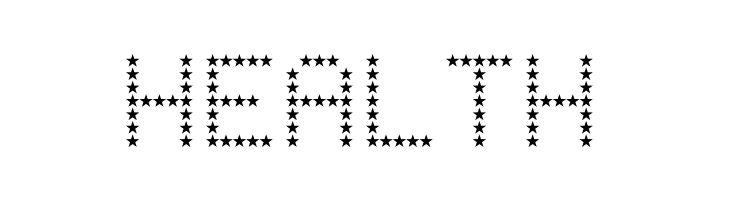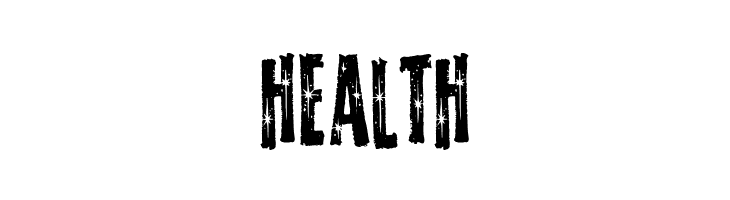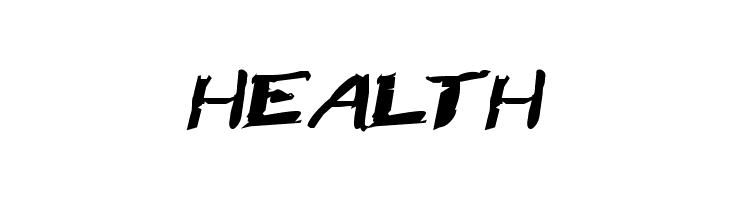
A playful handwritten font with smooth, rounded strokes and a casual feel.
( Fonts by Kimberly Geswein )
A playful, bold font with hand-drawn characters enclosed in black ovals.
( Fonts by Letterafa Studio )
A playful, star-filled decorative font perfect for festive projects.
( Fonts by Kimberly Geswein )
A bold, star-patterned decorative font with a playful style.
( Fonts by Indieground Design )
A bold, geometric font with a modern and futuristic aesthetic.
( Fonts by Scratchones )
A whimsical font with rabbit ear decorations on each character, perfect for playful designs.
Bold, festive display font with snow-covered letters.
( Fonts by Levi Halmos )
( Fonts by RudynFluffy )
A bold, angular font with a futuristic and geometric style.
( Fonts by Uddi Uddi )
A playful, bubbly font with rounded edges and quirky cutouts.
A bold, dynamic font with a slight slant and strong presence.
A rugged, distressed font with a hand-drawn, edgy style.
A rugged, distressed font with a bold, hand-drawn appearance.
A whimsical and decorative font with intricate patterns and star motifs.
( Fonts by Loraine Wauer Ferus www.billybear4kids.com )
A playful font with characters embedded in cartoon panda designs.
( Fonts by Mr Fisk - Mike Larsson - fontorama.net )
A whimsical and irregular hand-drawn font with a playful and artistic style.
A bold, decorative font with angular lines and intricate swirls.